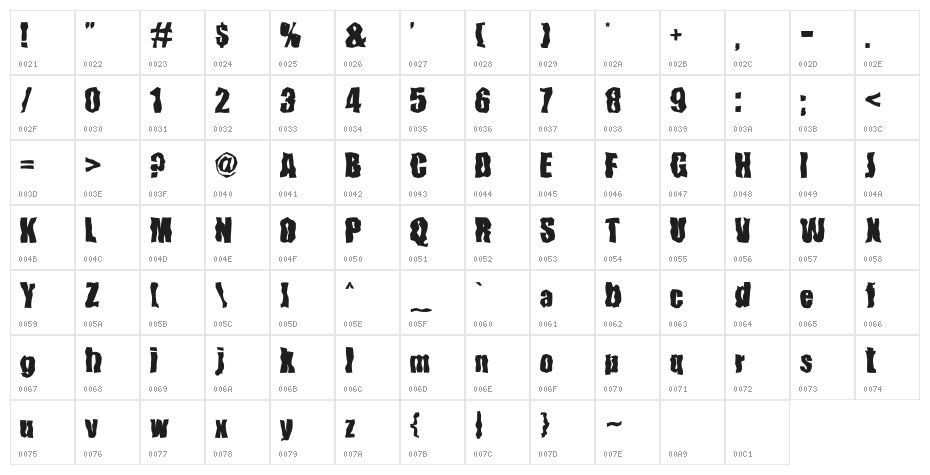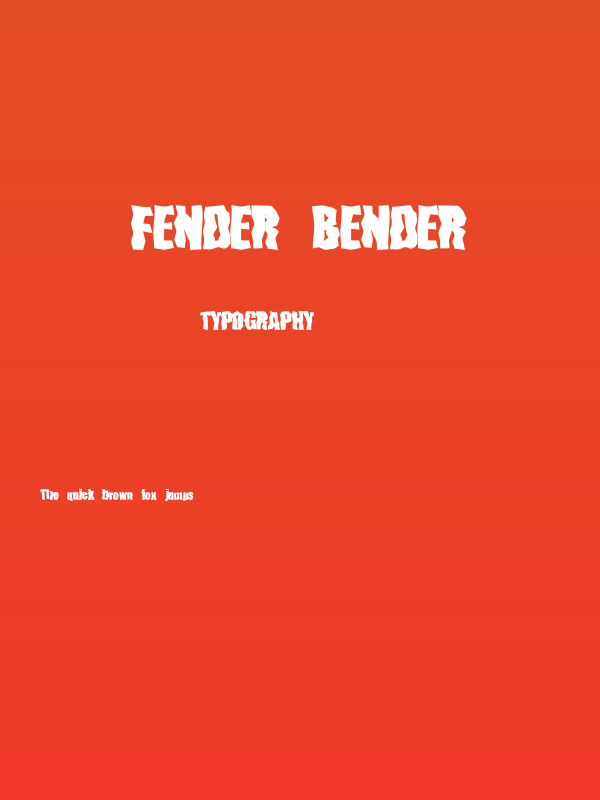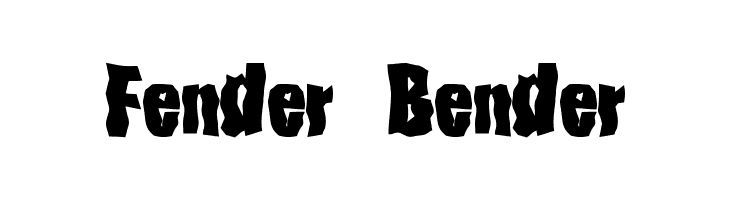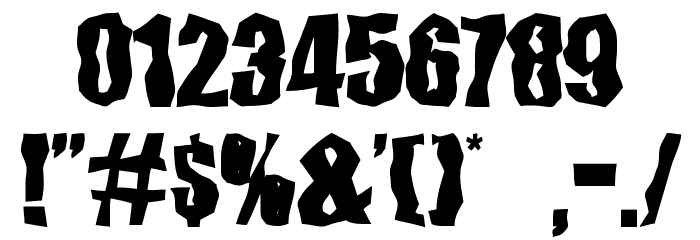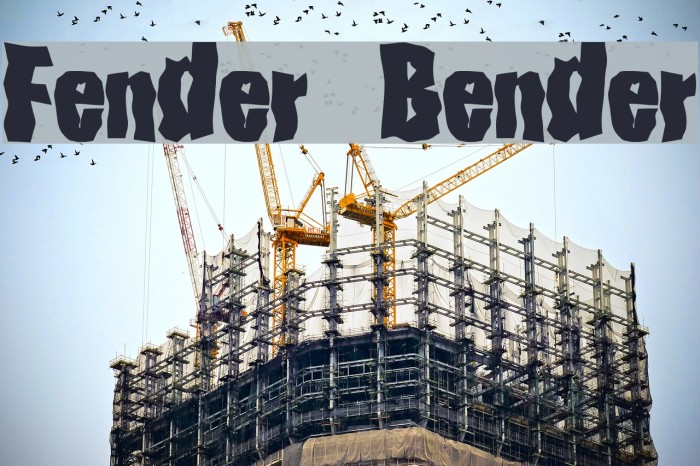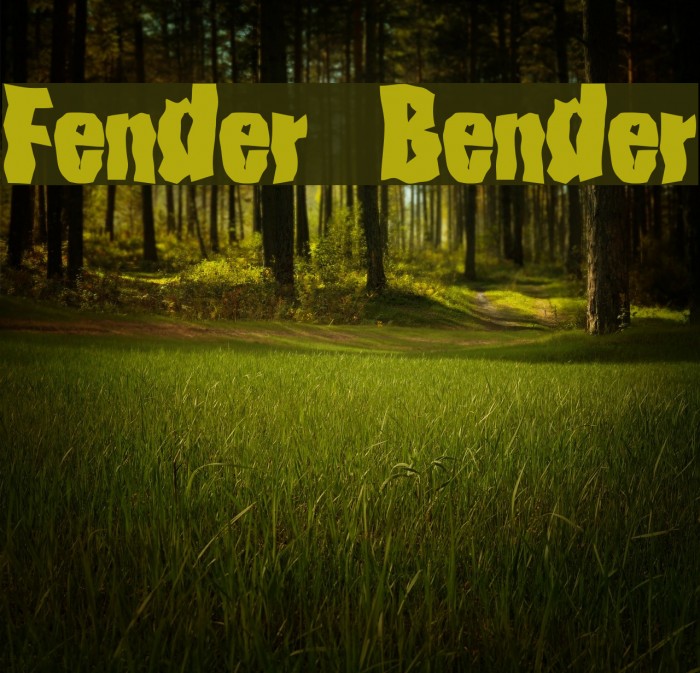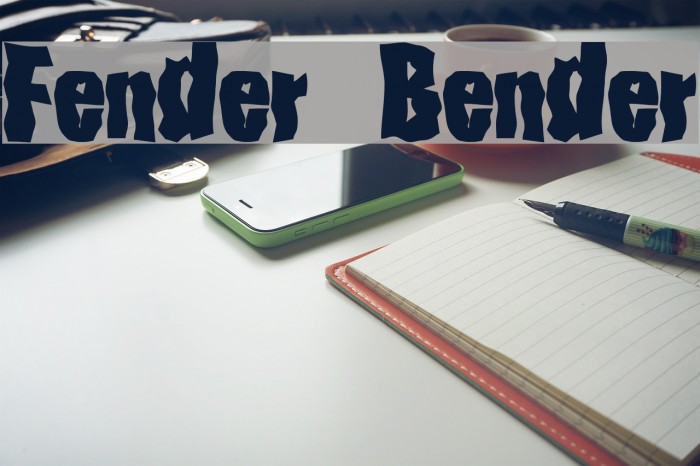
Fender Bender Font
Fender Bender Description
This font features a bold and jagged design, reminiscent of torn paper or rough edges. Each character has an irregular, hand-crafted appearance, giving it a unique and edgy style. The uppercase and lowercase letters maintain this rugged aesthetic, with sharp angles and uneven lines. Numbers and special characters follow the same design principles, ensuring a cohesive look across all glyphs. The font's distinctiveness makes it stand out, suitable for projects that require a strong visual impact.